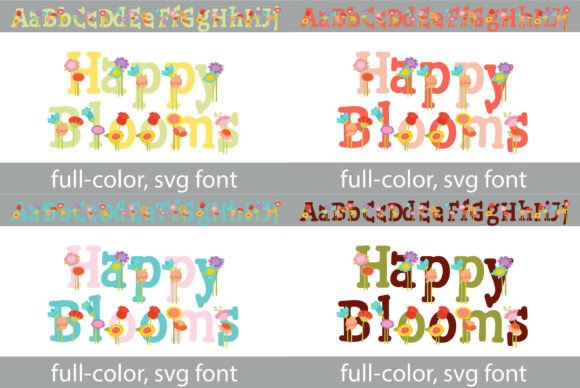
Happy Blooms: A Typeface for a Bright-and-Botanical Soul
There's a particular challenge in design when the goal isn't just to be seen, but to be felt. You need a visual element that carries warmth, optimism, and a touch of handcrafted sincerity. That's the space where Happy Blooms lives. It's not merely a set of letters; it's a design asset that brings a garden's worth of personality to a project. As a whimsical display typeface, its core identity is built on bold, rounded letterforms, each one adorned with rhythmic, hand-drawn "flower-and-stem" overlays. This isn't a standard script font or a simple handwritten font. It's a full-color SVG font, meaning the intricate botanical details and color gradients are baked directly into the letterforms themselves.
The overall effect is a charming fusion. It bridges the playful, approachable feel of nursery school aesthetics with the polished, intentional look required for modern boutique branding. The letter shapes are confident and clear, ensuring the message is delivered, while the floral overlays add a layer of whimsy and artistry. This unique combination makes it a premium font that avoids looking either childish or overly formal. It communicates joy, care, and an organic sensibility from the very first glance.
Where Your Brand Identity Can Blossom
Understanding a typeface's personality is one thing; knowing where to apply it is what delivers real value. Happy Blooms shines in contexts where a cheerful, charming, and slightly artisanal vibe is desired. Its strength as a display font makes it perfect for headlines, logos, and short, impactful text blocks where its detailed character can be fully appreciated.
For logo design, think of independent businesses with a human touch. A local florist, a boutique children's clothing line, a specialty baker, or an organic skincare brand could build an entire brand identity around this font. It sets a tone of handmade quality and attention to detail before a customer even reads a word. In packaging design, especially for organic products or artisanal goods, using Happy Blooms on a label or box instantly signals a natural, joyful product inside. It’s equally effective for editorial design in magazines or blogs focused on gardening, DIY crafts, or family life, where section headers or feature titles need to pop with personality.
In the digital realm, its value is clear for social media graphics. A bold, colorful header created with this font can stop the scroll, making it ideal for Instagram posts, Pinterest pins, or Facebook cover images for event promotions or product launches. It translates well to web design for specific landing pages or banner graphics, though its use for body text would require a more neutral companion font. The multiple earthy and pastel colorways it offers are a practical advantage, allowing you to select a palette that aligns precisely with your project's mood, whether it's warm terracotta, soft sage, or muted lavender.
Practical Guidance for Pairing and Professional Use
Introducing a font with this much character into a design system requires a thoughtful approach. The first step is always to evaluate project fit. Is your audience looking for warmth and whimsy? Does the project's core message align with themes of growth, nature, or celebration? If the answer is yes, then Happy Blooms could be a powerful tool. If the goal is stark minimalism or corporate seriousness, it’s likely not the right match.
Because it's a display font, pairing is crucial for creating a functional and readable design. You'll almost always need a complementary typeface for longer body text. A clean, simple sans serif font often provides the best balance. The geometric clarity of a sans serif creates a visual rest for the eyes and lets the botanical details of Happy Blooms truly stand out as a focal point. Avoid pairing it with another ornate script font or a highly decorative serif, as this can create visual clutter and compete for attention. The goal is harmony, not a battle of styles.
Before purchasing, take advantage of any specimen sheets or previews. Test how the font looks at the specific sizes you plan to use. Its intricate details are best viewed at larger scales; at very small sizes, the floral overlays may become muddy or lose clarity, impacting readability. This is a common consideration with detailed display fonts. Review the included styles and color variations. Does the font family offer the specific colorway you need? Understanding these details upfront prevents frustration later.
Final Thoughts on a Joyful Tool
Happy Blooms is more than just a collection of pretty letters. It's a strategic design asset for projects that need to communicate a specific feeling—optimism, growth, and handcrafted care. Its power lies in its ability to set a strong emotional tone immediately, making it a valuable addition to the toolkit of designers, marketers, and small business owners looking to inject a genuine sense of joy into their visual communications. When used thoughtfully, with appropriate pairings and in the right context, it helps cultivate a memorable and engaging brand presence that truly resonates.